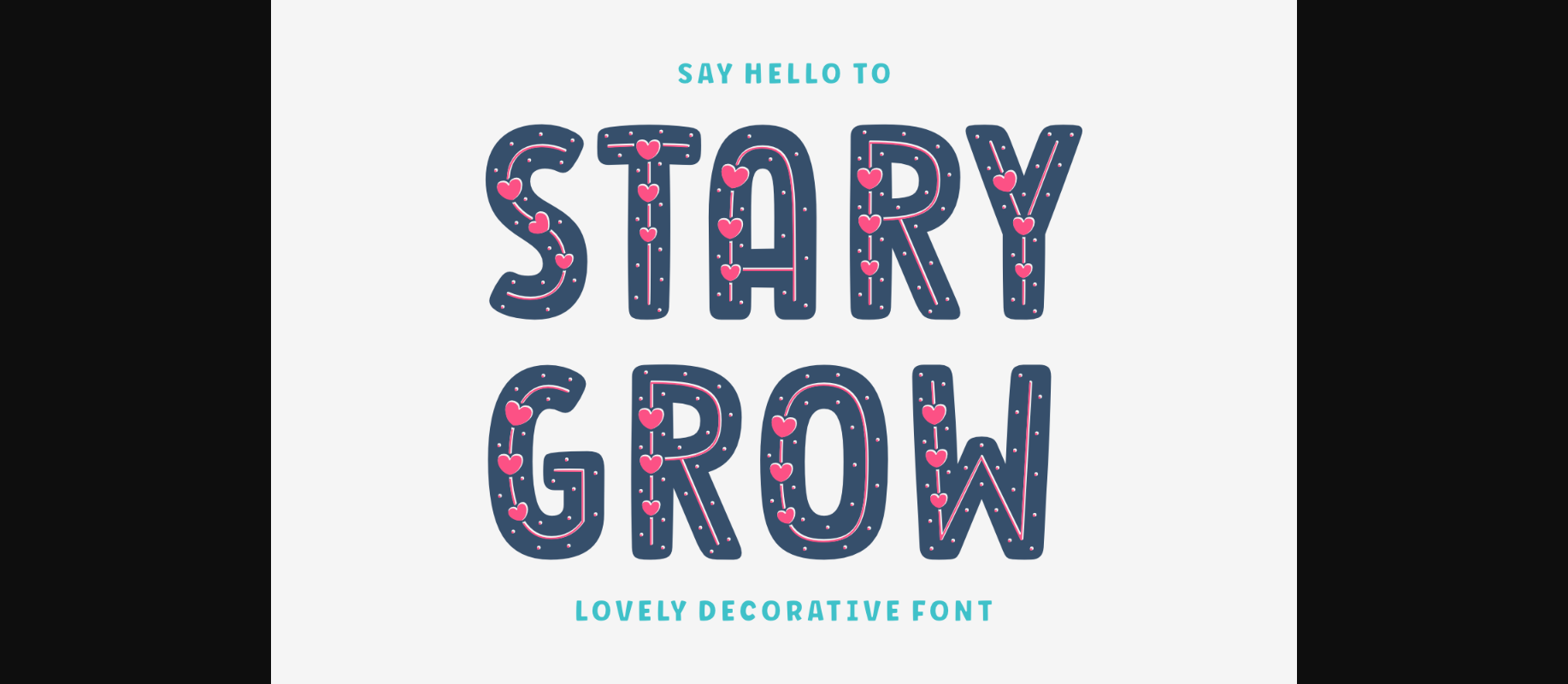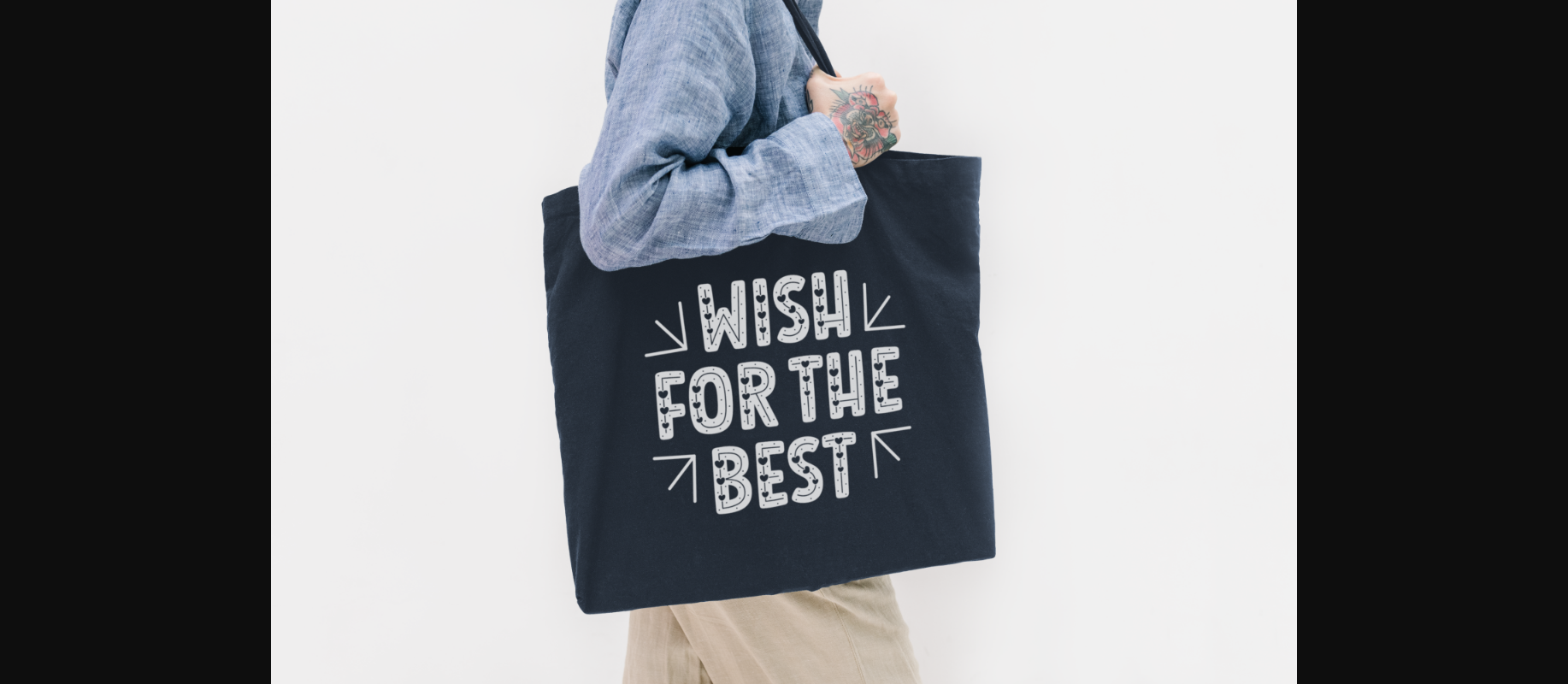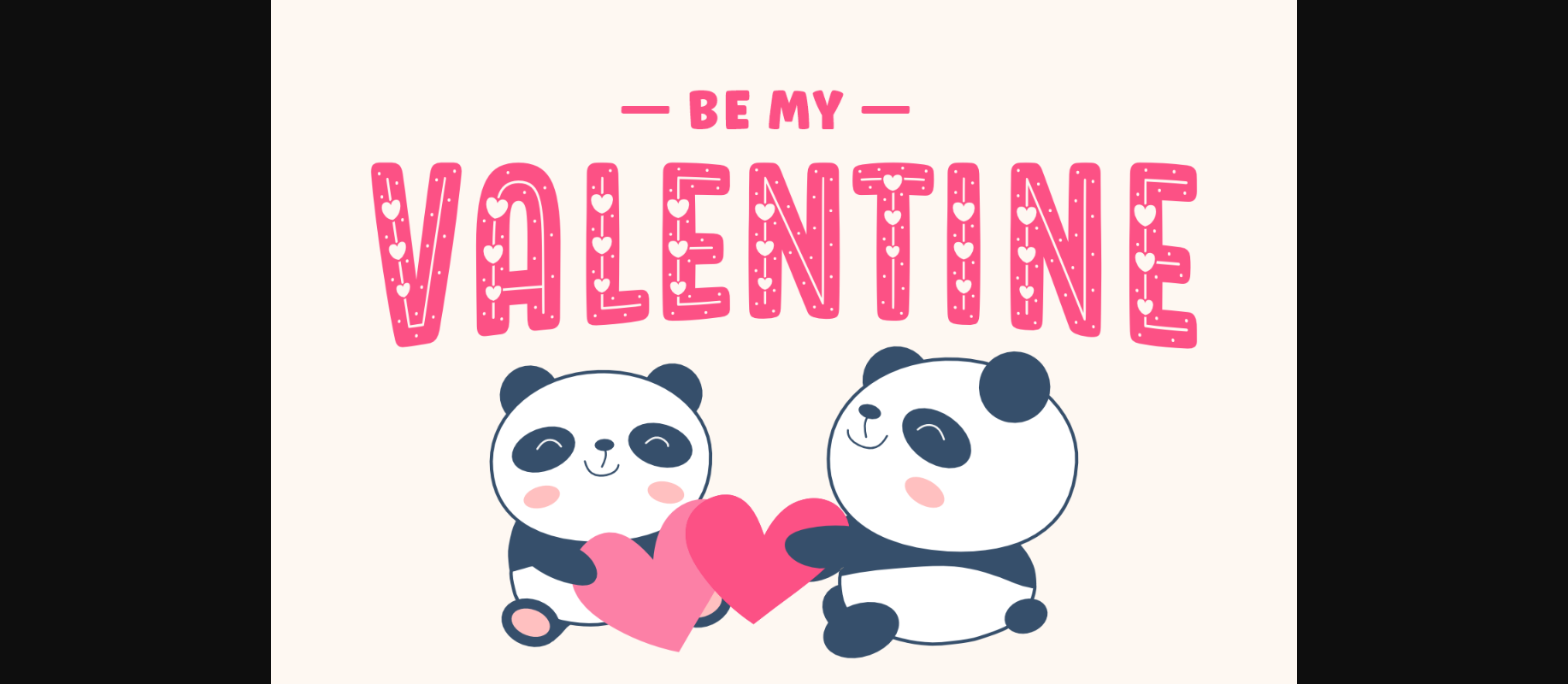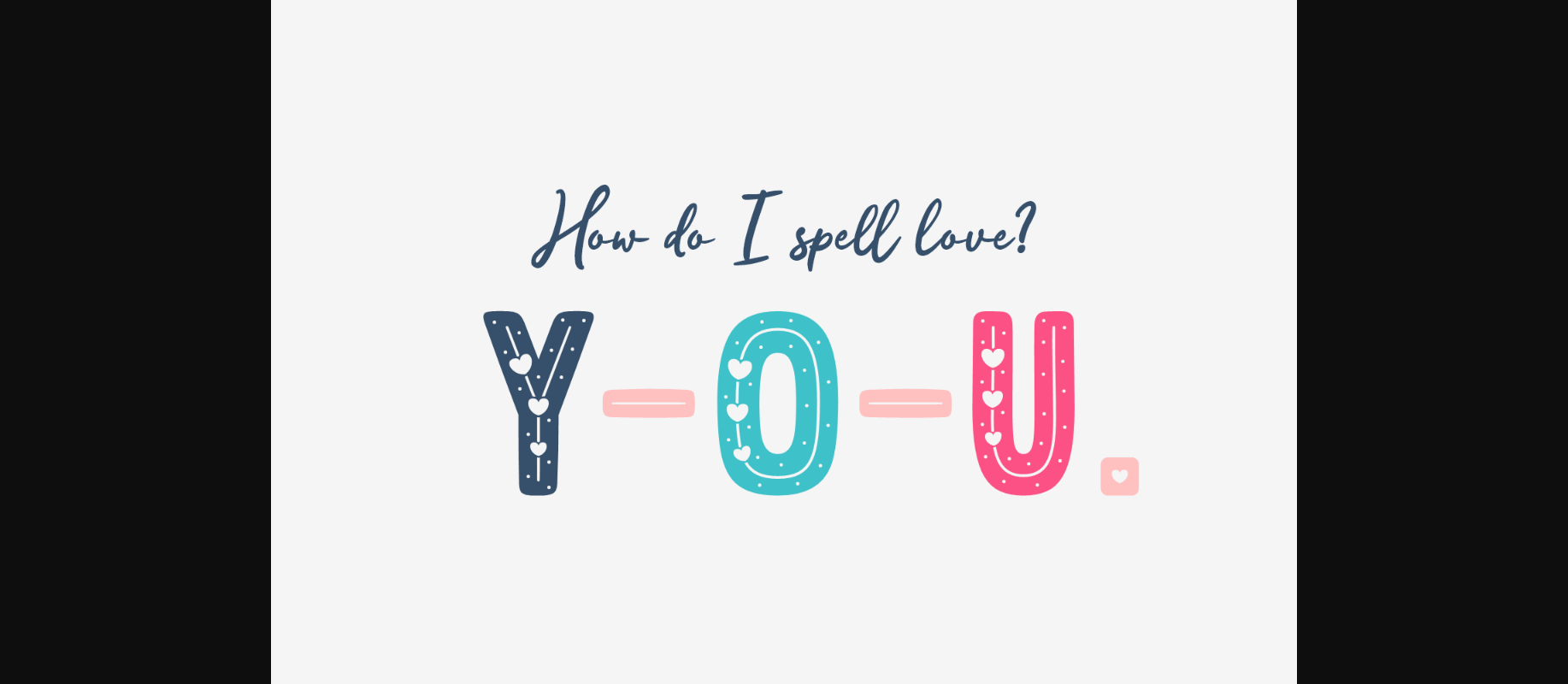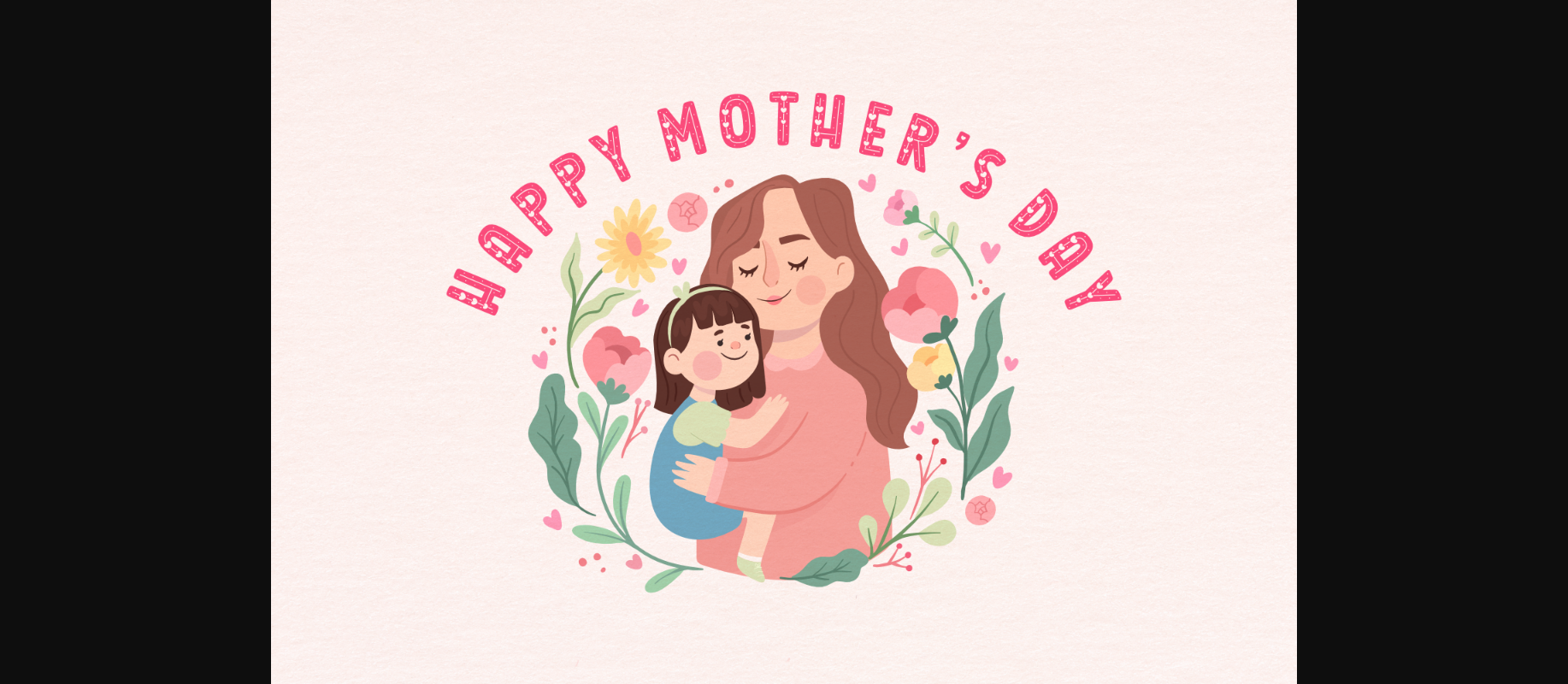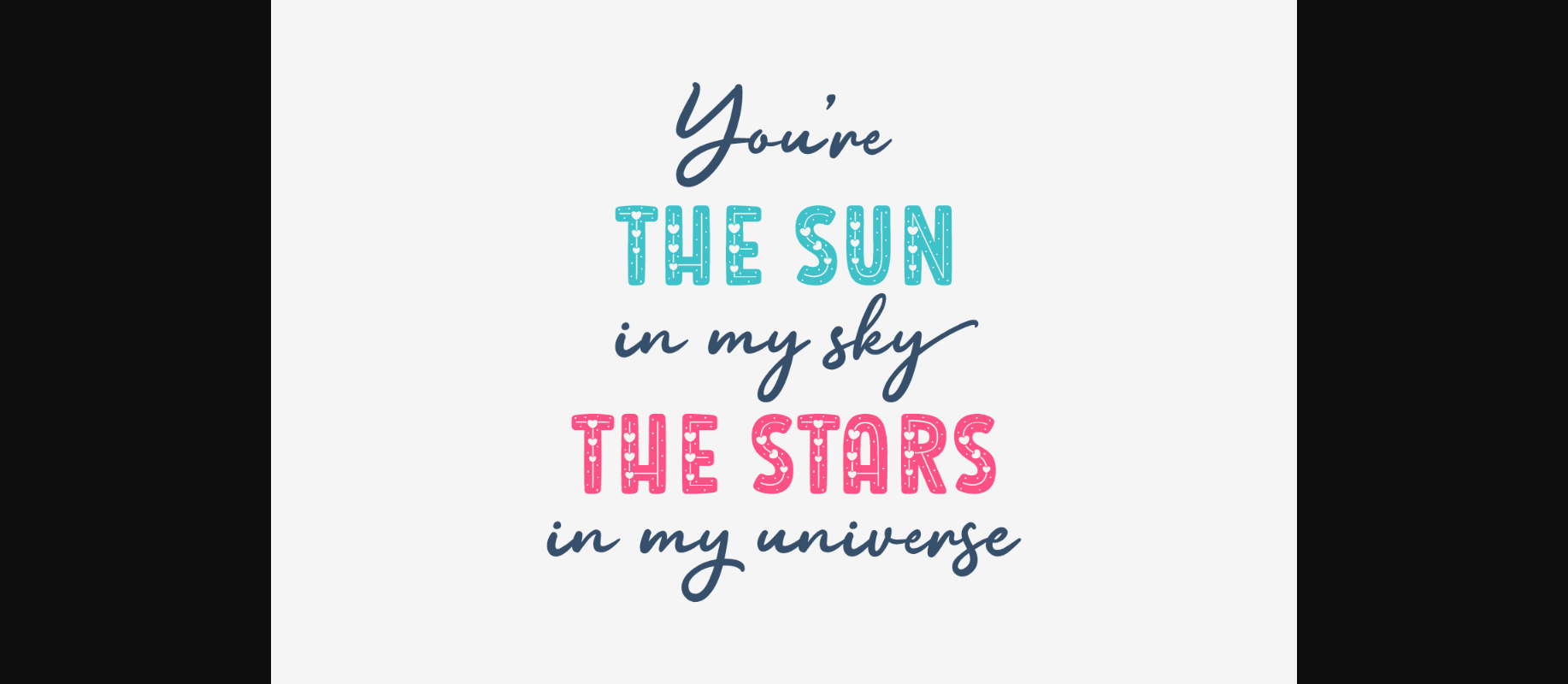
Stary Grow is a fashionable and delicate script font. It has a neat, subtle, and sleek vibe and it will be a hit for any design that you want to add it to.